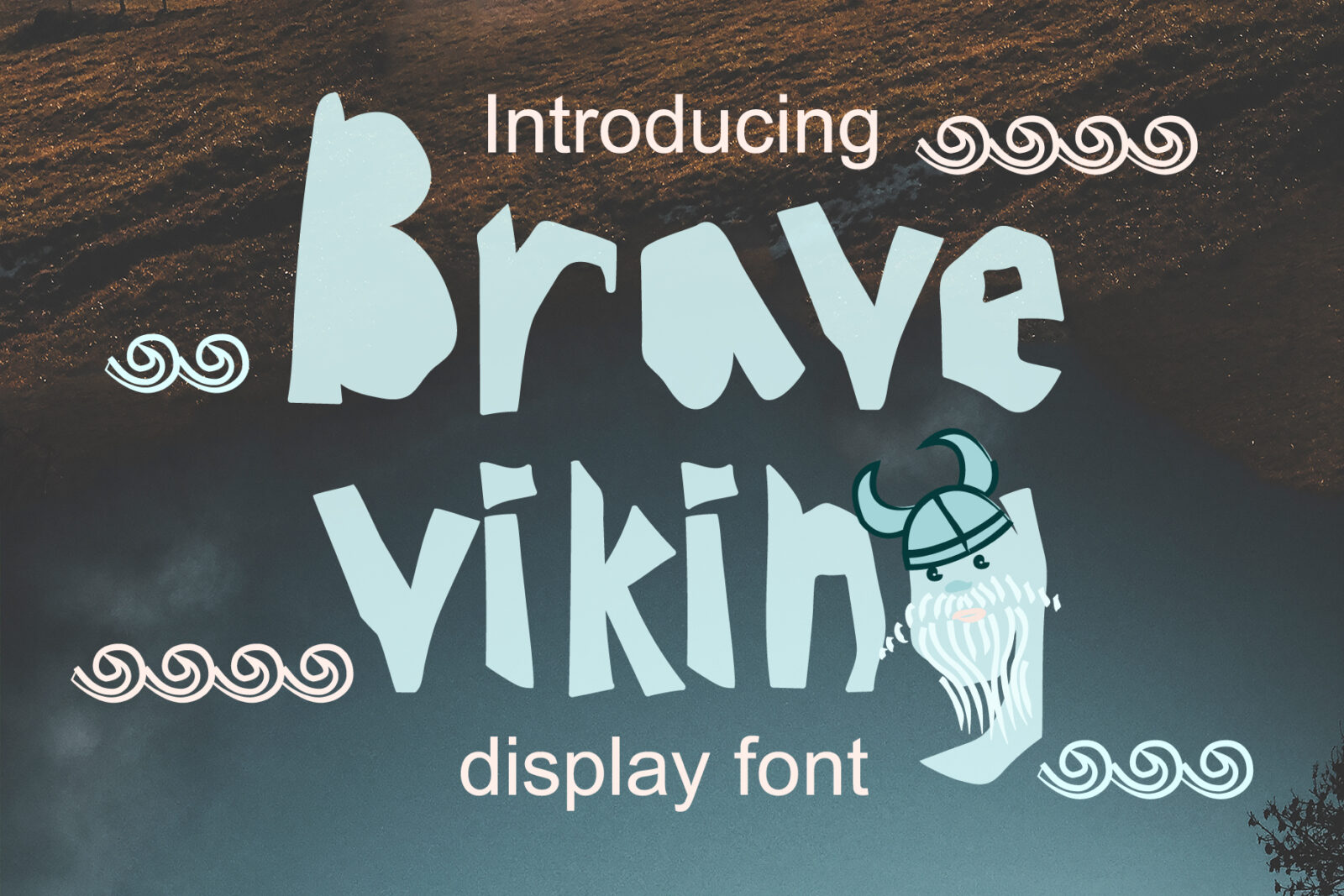
The Quest for the Perfect Font: Discovering Brave Viking
I’ll never forget the design project that led me to discover the Brave Viking font. I was working on a branding project for a new outdoor gear company, and I needed a font that would evoke a sense of adventure and boldness. I spent hours scouring font websites, but nothing seemed quite right. That was until I stumbled upon Brave Viking. With its unique blend of ruggedness and sophistication, it was the perfect fit for my project. In this article, I’ll share my experience with Brave Viking, and explore its features, uses, and alternatives.
An Honest Review of Brave Viking
- ✨ Highly graphical and grotesque sans serif design
- ✅ Unique and compelling style that’s perfect for modern typographic uses
- 🔥 Excellent for headlines, titles, and short text passages
- 👍 Highly legible and readable, even at smaller font sizes
While Brave Viking is an excellent font, it’s not perfect. Here are a few things to keep in mind:
- 🤔 Limited support for non-English characters, so it’s best suited for English-language projects
- ⚠️ May not be the best choice for body text or long passages, as it can be a bit bold and attention-grabbing
A Practical Guide to Using Brave Viking
The Backstory of Brave Viking
Brave Viking was designed by a team of typographers who wanted to create a font that would evoke the spirit of adventure and exploration. Inspired by the rugged landscapes of Scandinavia, they crafted a font that’s both bold and beautiful. With its unique blend of modernity and classicism, Brave Viking is perfect for designers who want to add a touch of Nordic cool to their projects.
Q: What is Brave Viking font?
A: Brave Viking is a highly graphical and grotesque sans serif font that’s perfect for modern typographic uses.
Q: Is Brave Viking suitable for body text?
A: While Brave Viking is an excellent font, it’s best suited for headlines, titles, and short text passages. It may not be the best choice for body text or long passages.
Q: Is Brave Viking available in different weights?
A: Yes, Brave Viking is available in different weights, including regular, bold, and extra bold.